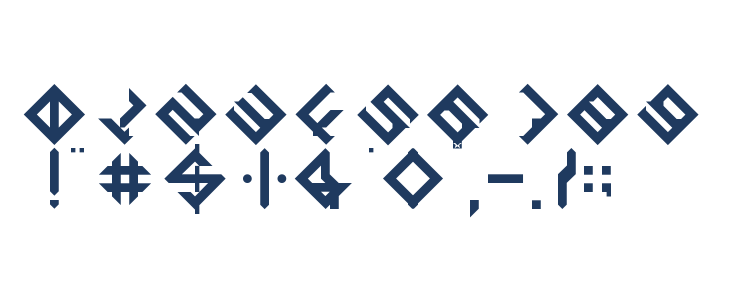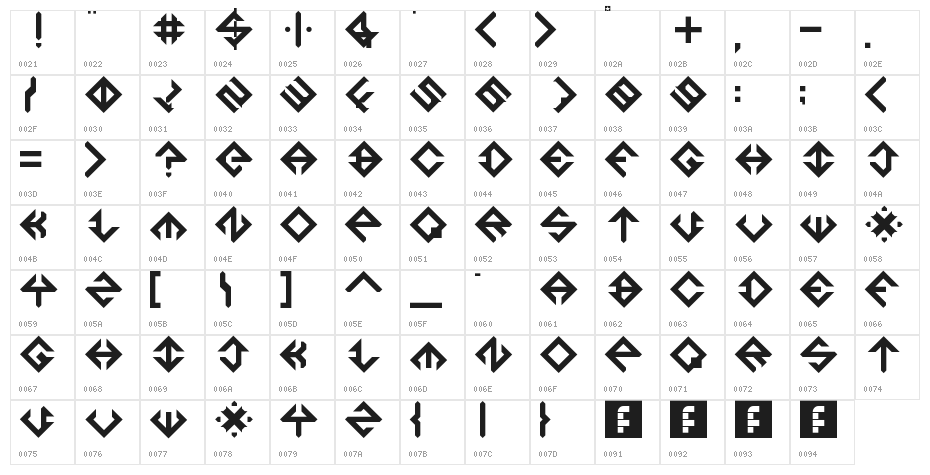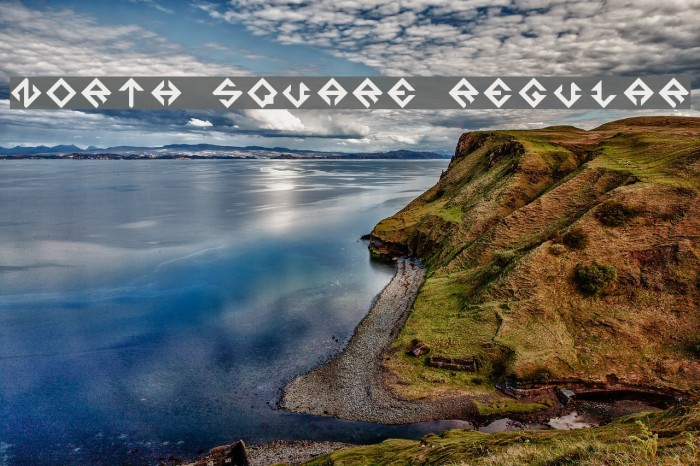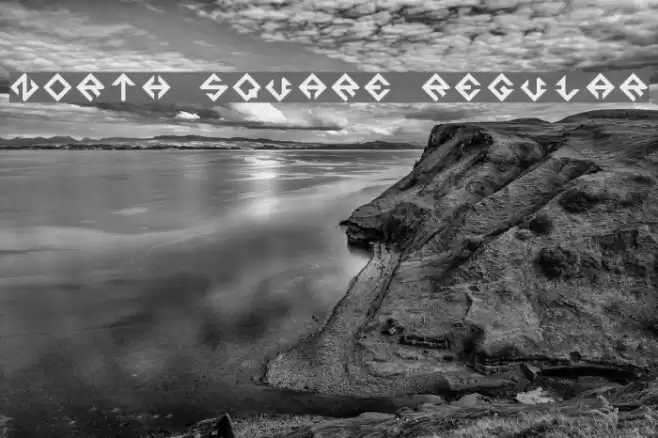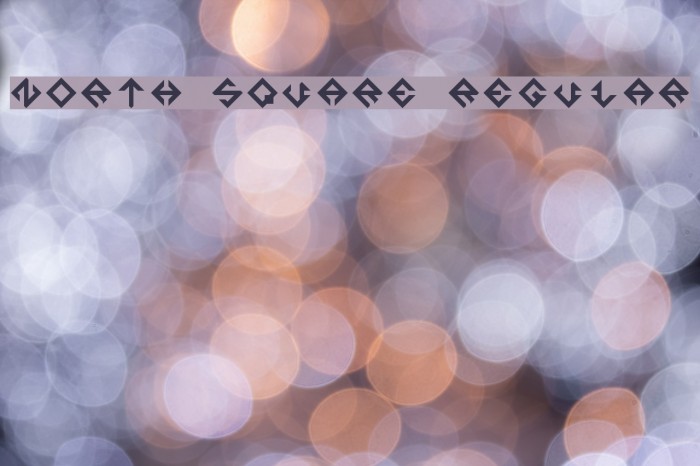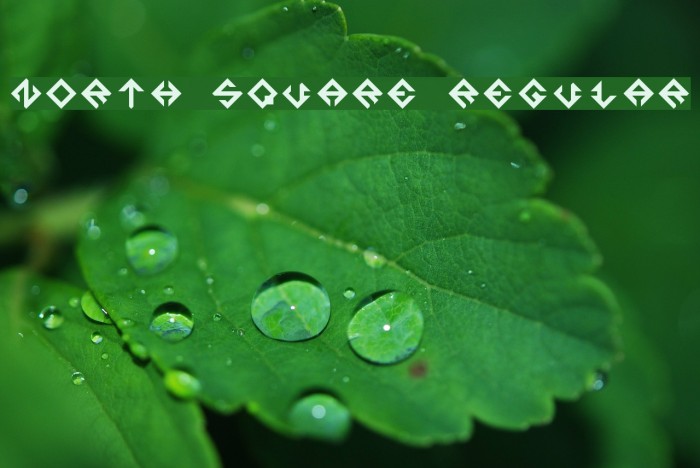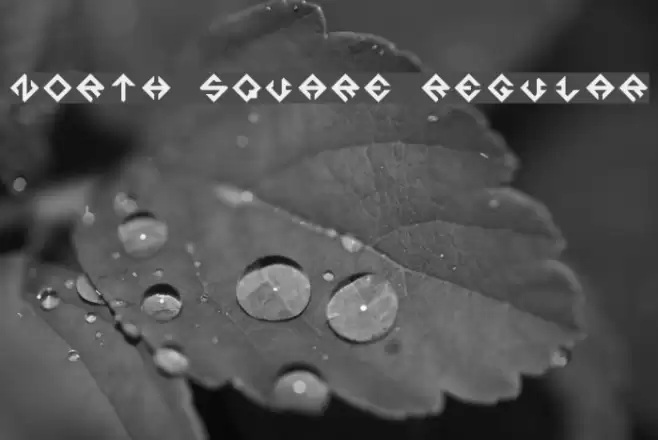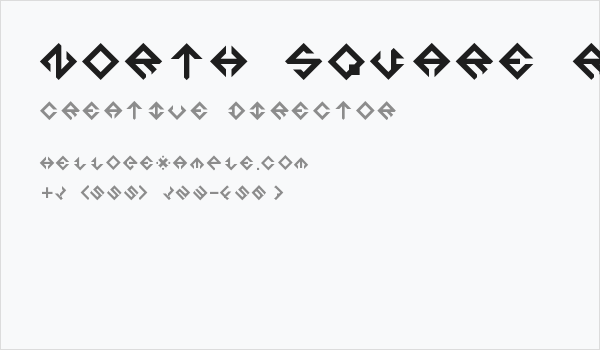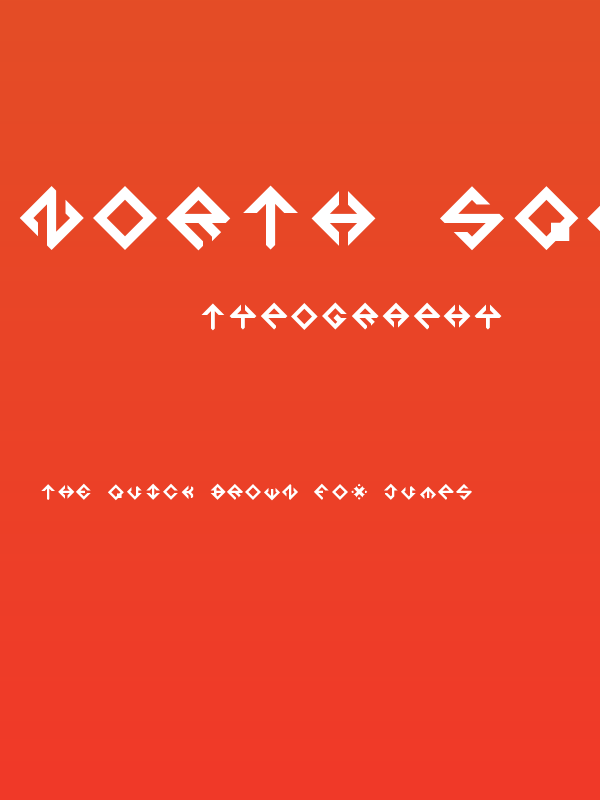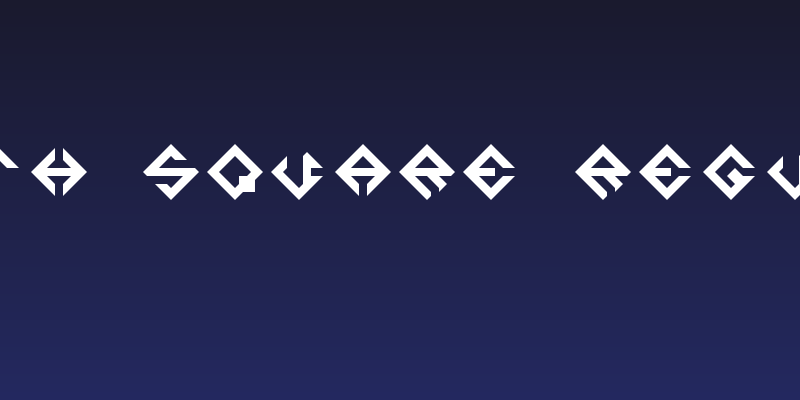
North Square Regular Font
North Square Regular Description
This font features a bold, geometric design with a strong emphasis on angular shapes and symmetry. Each character is constructed using sharp lines and triangular elements, creating a futuristic and abstract appearance. The consistent use of thick strokes and pointed edges gives it a distinct and striking look. The uppercase and lowercase letters maintain a uniform style, while the numbers and special characters are crafted to match the overall aesthetic. This font is ideal for projects that require a modern and edgy feel, making it suitable for branding, posters, and digital media.
| Proposed Projects | Ideal for branding, posters, digital media, and any project needing a modern, edgy look. |